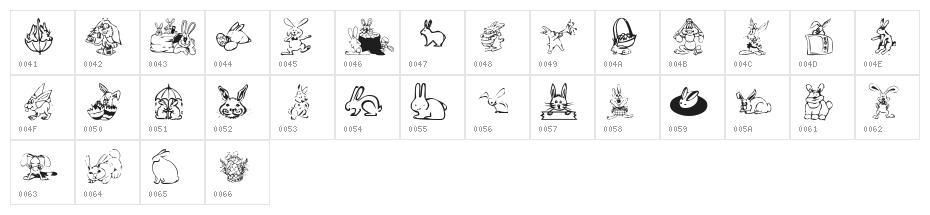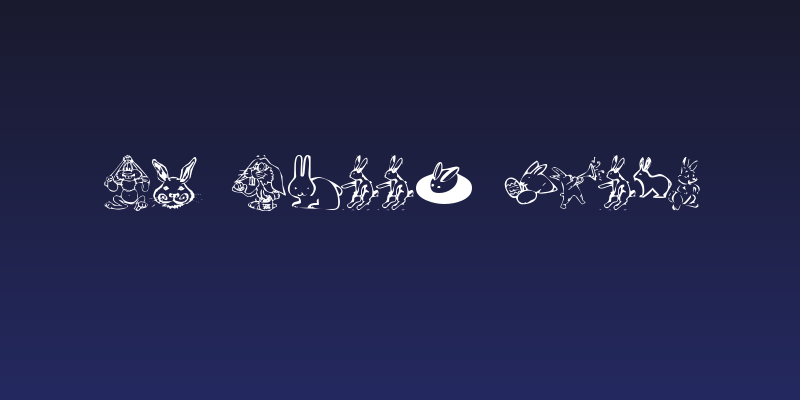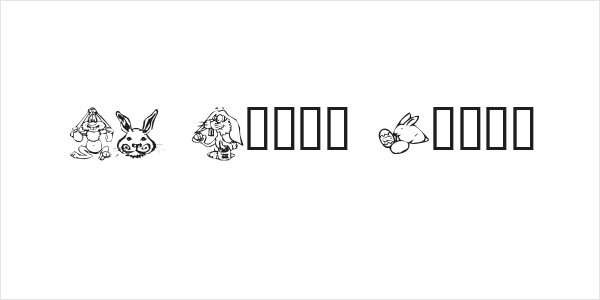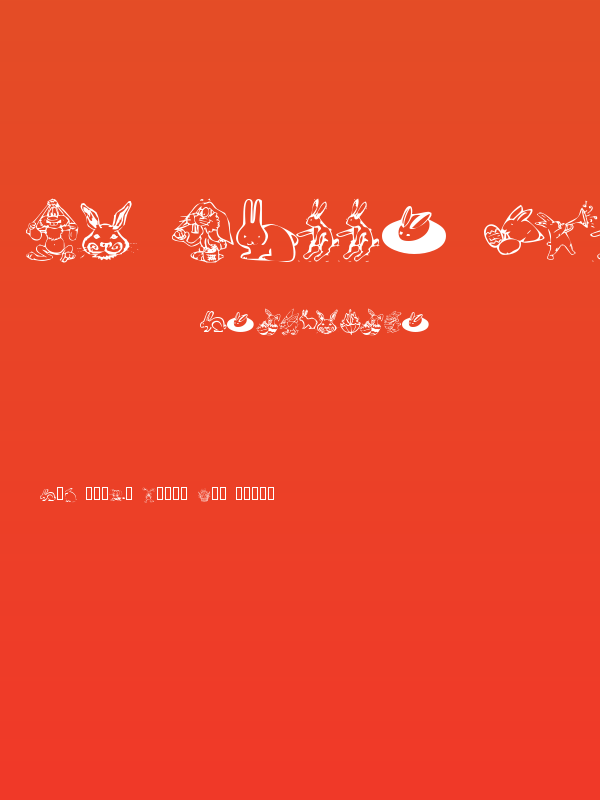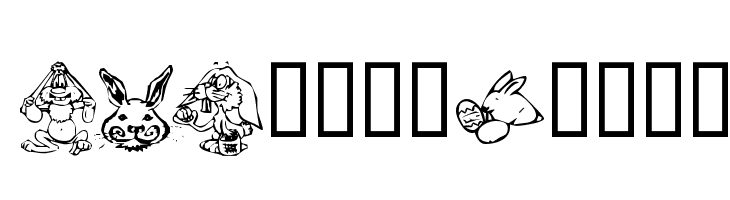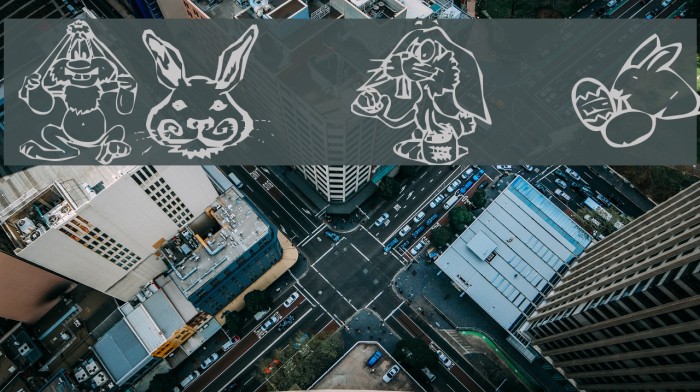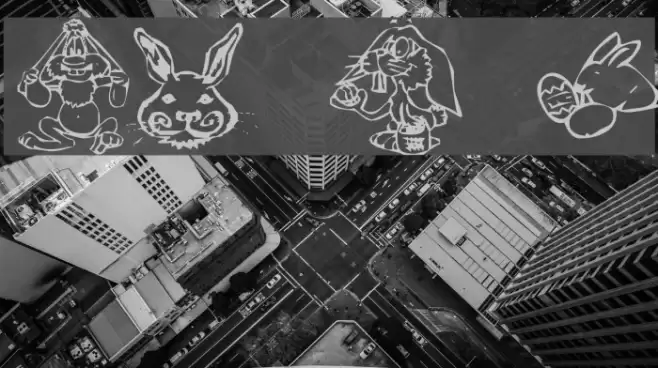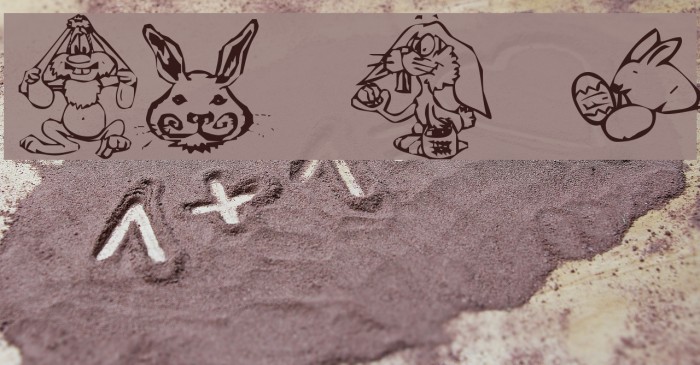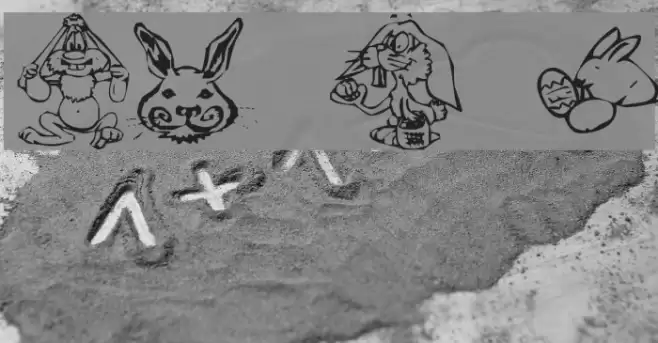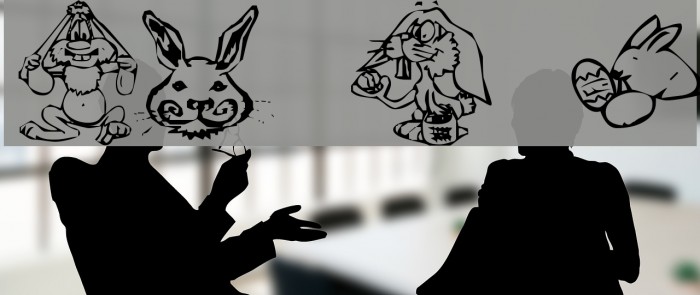
KR Bunny Dings Font
KR Bunny Dings Description
This is a decorative font featuring a whimsical collection of bunny-themed illustrations. Each character is represented by a unique and playful depiction of rabbits engaged in various activities or poses. The designs are intricate and detailed, capturing a sense of fun and creativity. The font is not intended for traditional text but rather for decorative purposes, making it ideal for projects that require a touch of charm and personality. The characters are well-defined, with clear outlines and expressive features, making them suitable for use in designs that aim to convey a lighthearted and joyful theme.
| Use Case | Logos, Decorative elements, Illustrations |
| Proposed Projects | Ideal for children's book illustrations, greeting cards, playful branding, and themed party invitations. |